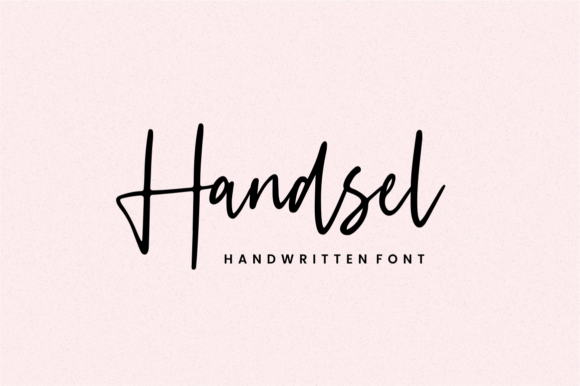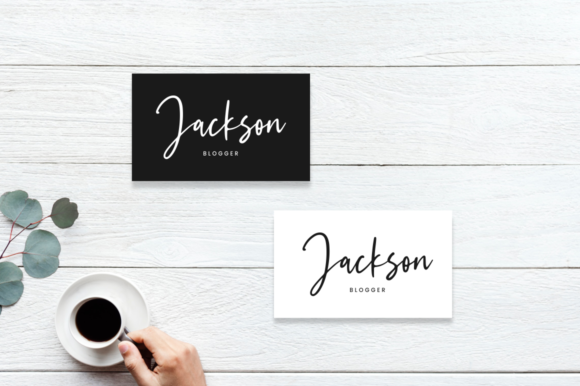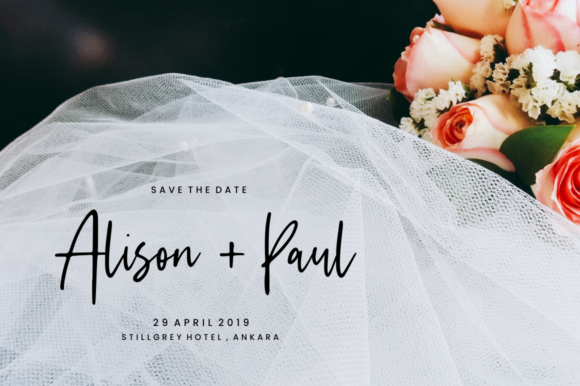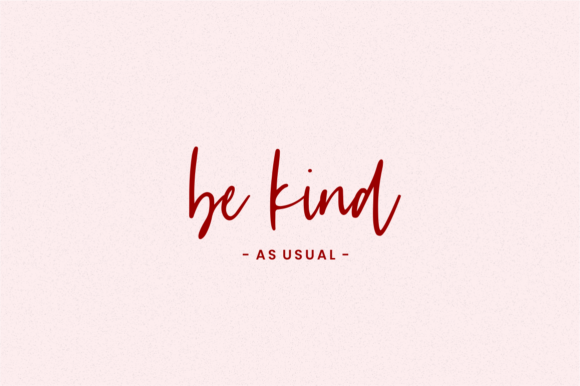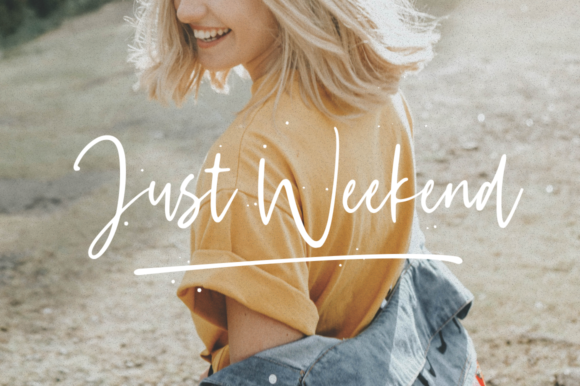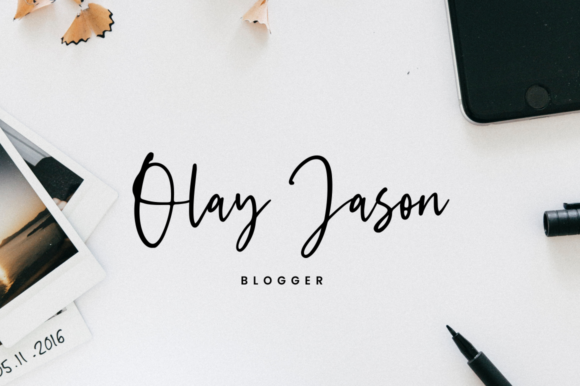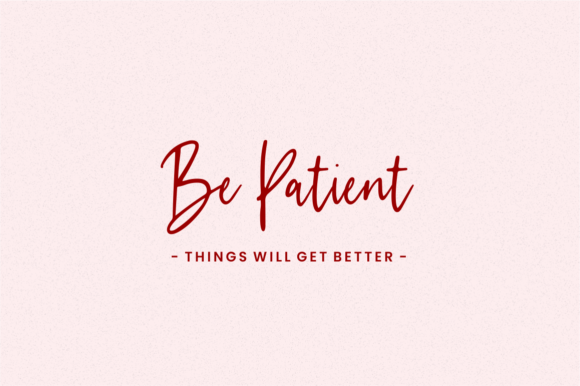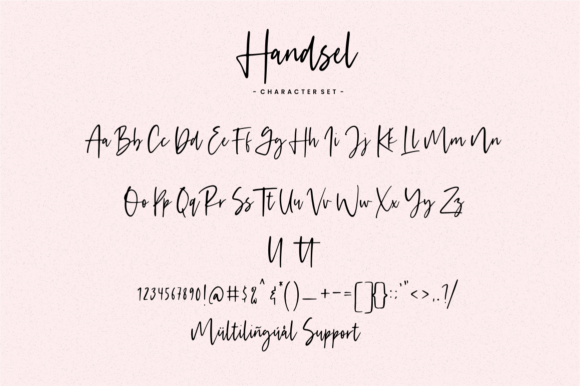
Handsel Font
About Handsel Font
Handsel is a fresh and unique handwritten font with an undeniably contemporary feel. Get inspired by its authentic charm!